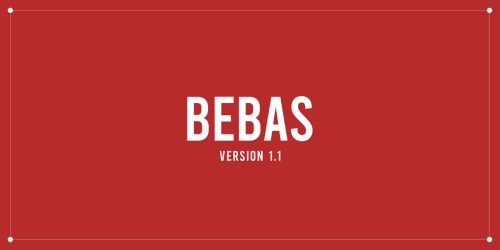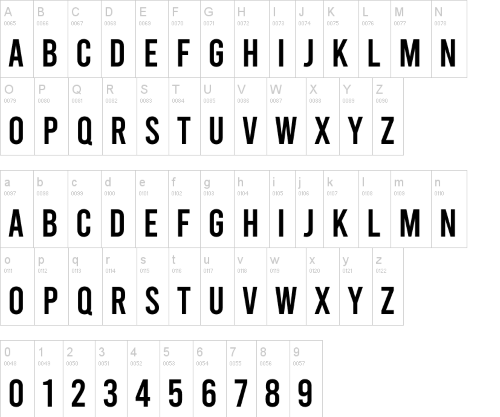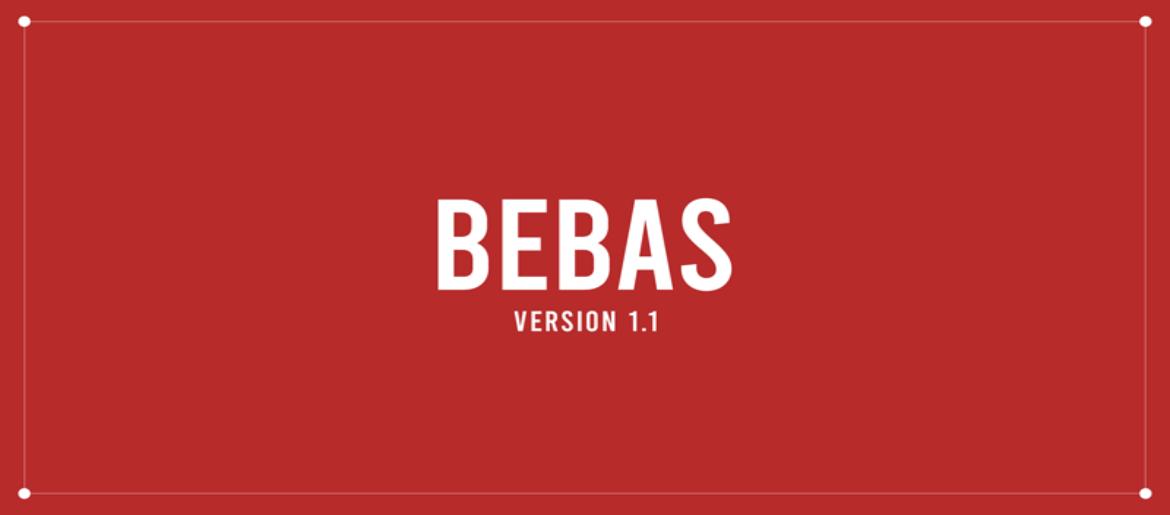
Bebas Font
Bebas Font is a bold, clean, and modern sans-serif typeface known for its tall, condensed letterforms. Designed for strong visual impact, it excels in headlines, posters, logos, and branding. Its simplicity and striking presence make Bebas a go-to choice for designers seeking clarity, confidence, and contemporary style.
➤ Font Name: Bebas
➤ Designer: Dharma Type
➤ Style: Sans serif